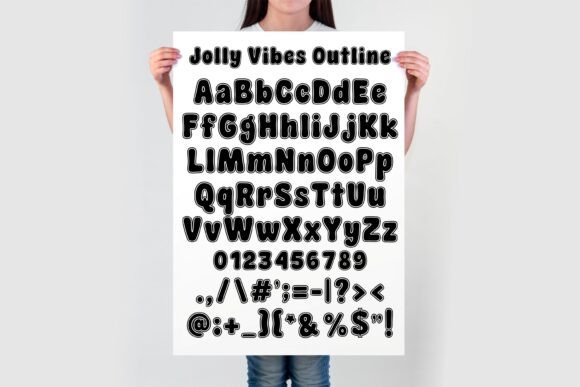
Jolly Vibes Outline Font – Free Download
Introduction to Jolly Vibes Outline Font
Jolly Vibes Outline is a fun and bold groovy handwritten font with a playful retro aesthetic.
Featuring thick, outlined letters and decorative accents like hearts and stars, this font adds a nostalgic and lively touch to any project Whether youโ€™re creating quotes, social media graphics, invitations, or branding, this font makes your designs pop.
Key Features of Jolly Vibes Outline Font
Why Choose Jolly Vibes Outline Font?